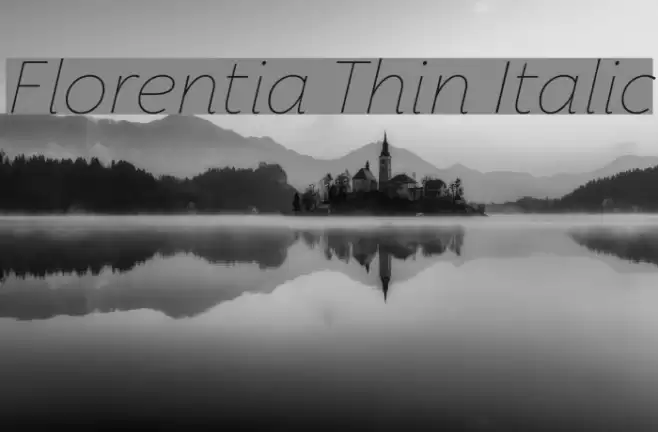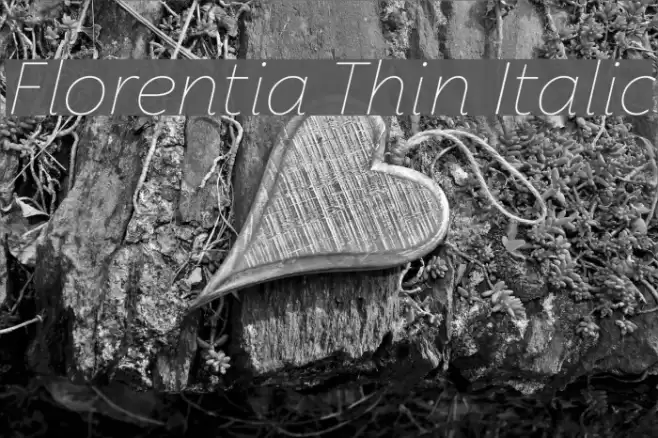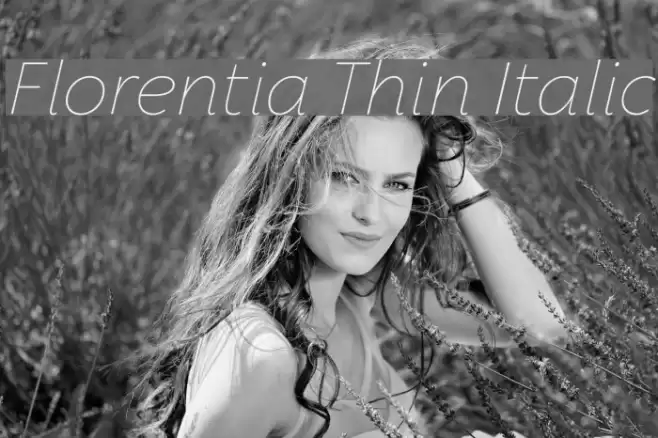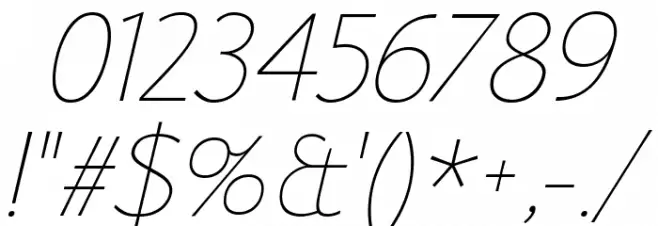
Florentia Thin Italic Font
Florentia Thin Italic Description
This font features a sleek and elegant design with a thin, italicized style. The characters are delicately crafted, showcasing a modern and sophisticated aesthetic. The uppercase and lowercase letters maintain a consistent flow, with smooth curves and a slight slant that adds a touch of dynamism. The numerals are clear and legible, complementing the overall refined appearance. Special characters are thoughtfully integrated, maintaining the font's cohesive look. This typeface exudes a sense of grace and minimalism, making it suitable for a variety of design applications.
A sleek, thin, and italicized font with a modern and elegant style from Uncategorized fonts.
- Proposed Projects: Ideal for fashion magazines, luxury branding, wedding invitations, and elegant website headers.
- Use Case: Headlines, Logos, Invitations